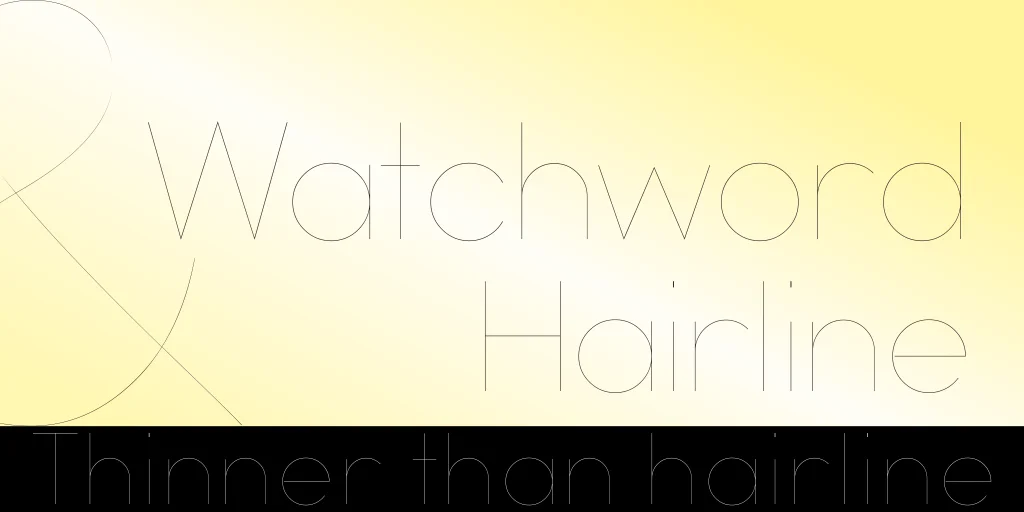
Watchword Font
Watchword Font is perfect for security company branding, surveillance system logos, cybersecurity campaigns, password protection services, digital privacy promotions, secure communication materials, watchful monitoring signage, protective service advertising, confidential document headers, and trustworthy security presentations.
Watchword Font is exciting because it embodies vigilant protection and unwavering security through sharp, alert letterforms that convey watchfulness, reliability, and protective authority with commanding confidence. This vigilantly designed typeface combines security industry aesthetics with contemporary functionality, making it perfect for brands that want to communicate constant protection, reliable monitoring, and trustworthy security services that safeguard valuable assets and information.
The Watchword Font family includes alert weights with security-inspired character styling, featuring protective design elements and surveillance decorative variations. The font showcases watchful design details, security-optimized proportions, and vigilant character characteristics that create a comprehensive typographic system for protection and security-focused brand applications.
The security sophistication of Watchword Font makes it an invaluable tool for cybersecurity firms, surveillance companies, and protective service providers that need typography capable of communicating constant vigilance and security excellence. The font's watchful character helps establish immediate associations with reliable protection, constant monitoring, and trustworthy security that appeals to clients seeking comprehensive protection and peace of mind.
Security companies, monitoring services, and protective technology firms consistently choose Watchword Font for its ability to convey security authority and protective sophistication through typography. The font excels in applications where establishing security credibility and protective appeal are essential to brand positioning, making it particularly effective for cybersecurity services, surveillance systems, and protective brands targeting security-conscious consumers.
This font's comprehensive character set includes security-styled letterforms, alert numerals, protective punctuation marks, and surveillance symbols that support authentic security typography composition. The consistent vigilant styling maintains the protective security theme throughout all characters while ensuring professional readability across all security and protection design projects requiring Watchword Font Free Download functionality.